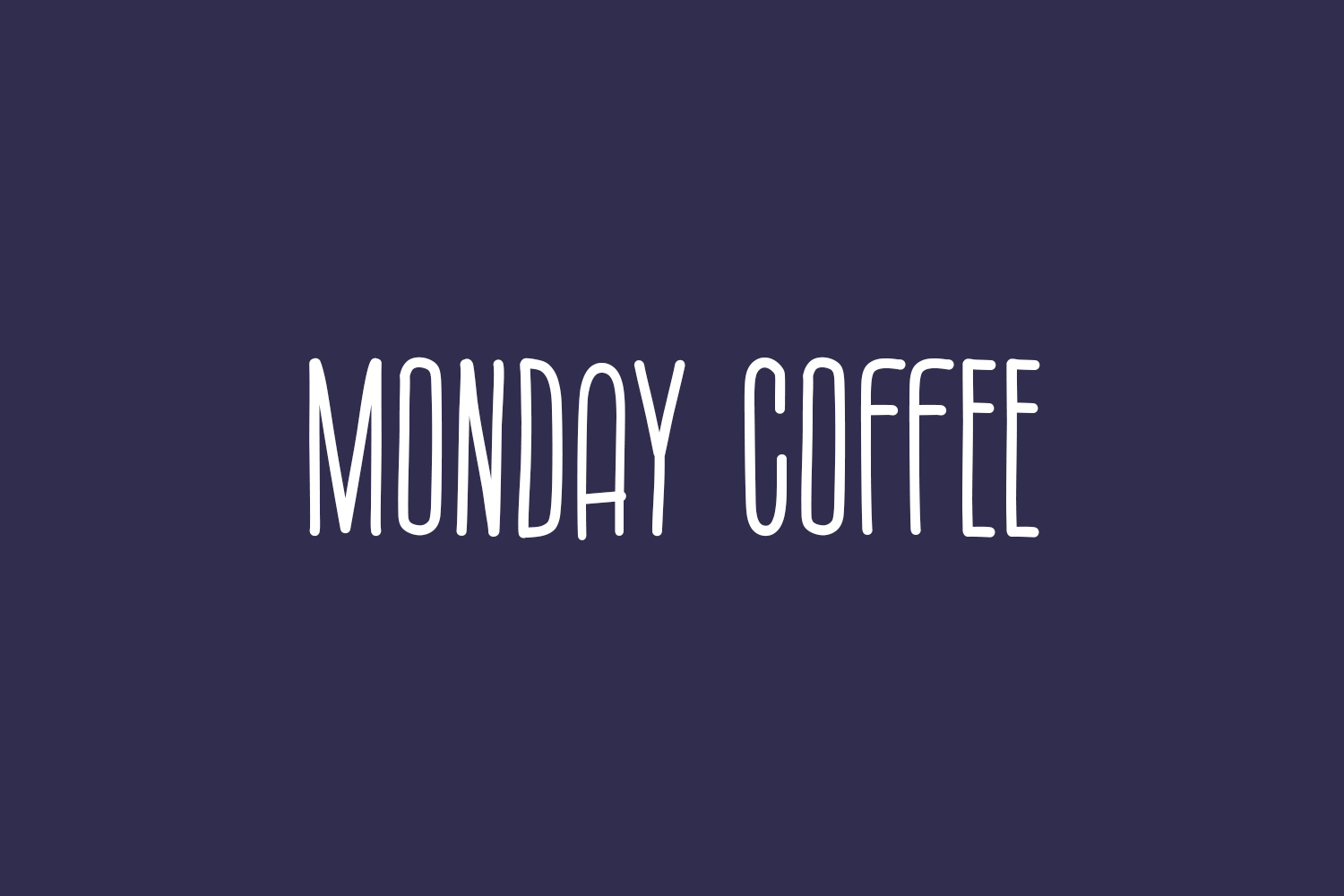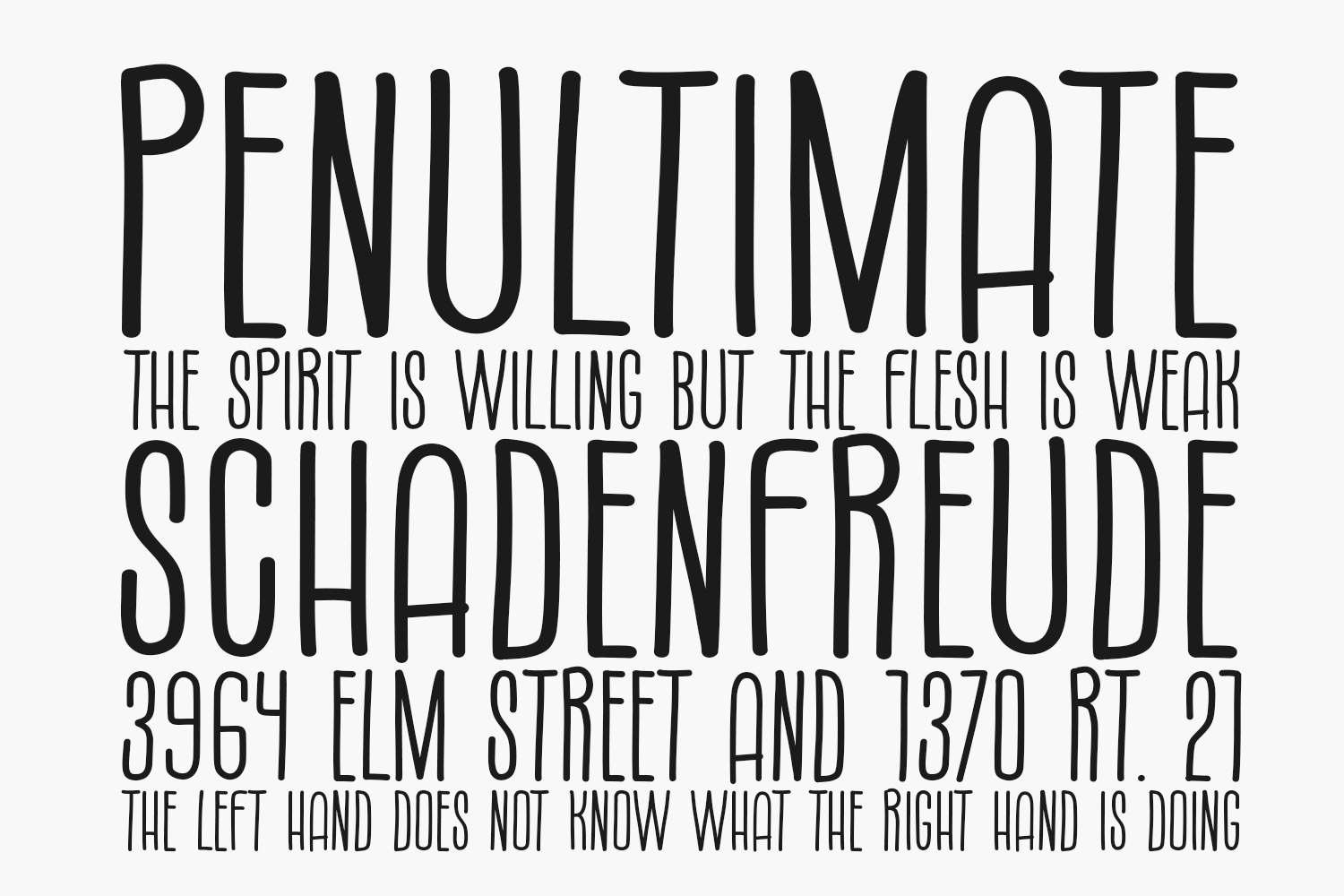
Monday Coffee Free Font introduces a contemporary and adorable extended display font, tailor-made for posters, logos, magazines, book covers, banners, and various other creative projects! Acquire this extraordinary font and infuse it into your designs to evoke a charming aesthetic. Its versatility allows seamless integration into a vast array of projects, so let it accentuate your creative vision and observe how it accentuates and elevates your designs, making them truly distinctive. Monday Coffee Free Font is free for personal or commercial use.